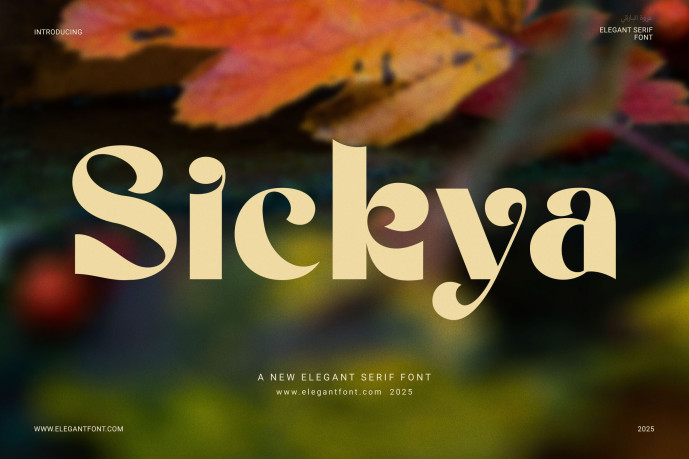
Sickya Serif Font
Sickya Serif Font is a striking serif display typeface designed for creative professionals who want strong visual impact. With bold strokes, sharp serifs, and clean edges, it brings character and clarity. Whether you work on branding, titles, or packaging, this font helps you shine.
Features That Make It Shine
– First, Sickya Serif offers standout display qualities:
– Bold weighted strokes that draw attention at large sizes
– Sharp serif endings that offer a modern yet classic touch
– Full character set—uppercase, lowercase, numerals, punctuation—to ensure design flexibility
– Excellent legibility even when used on print or digital media
Moreover, it includes stylistic alternates or ligatures (if offered) so you can adapt style without extra work. Also, the smooth curves and contrast make it easy to pair with sans serif fonts, script fonts, or minimal fonts, depending on your project needs.